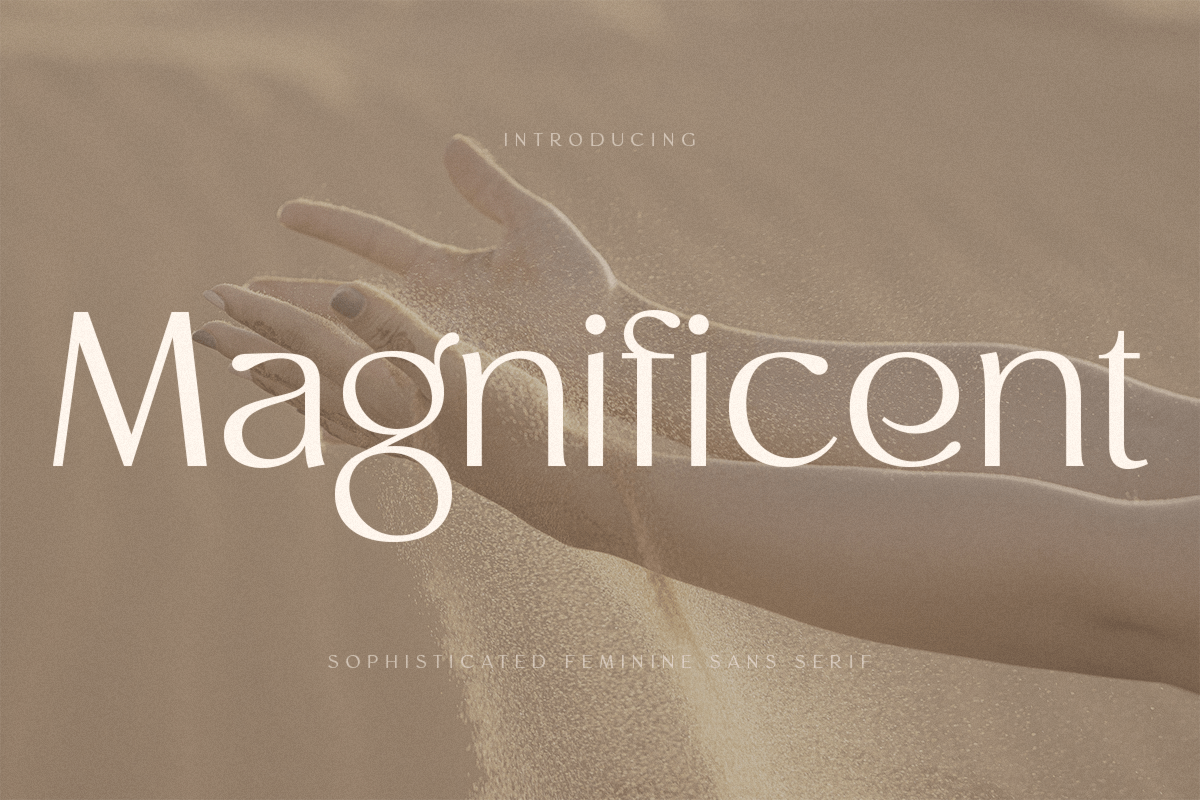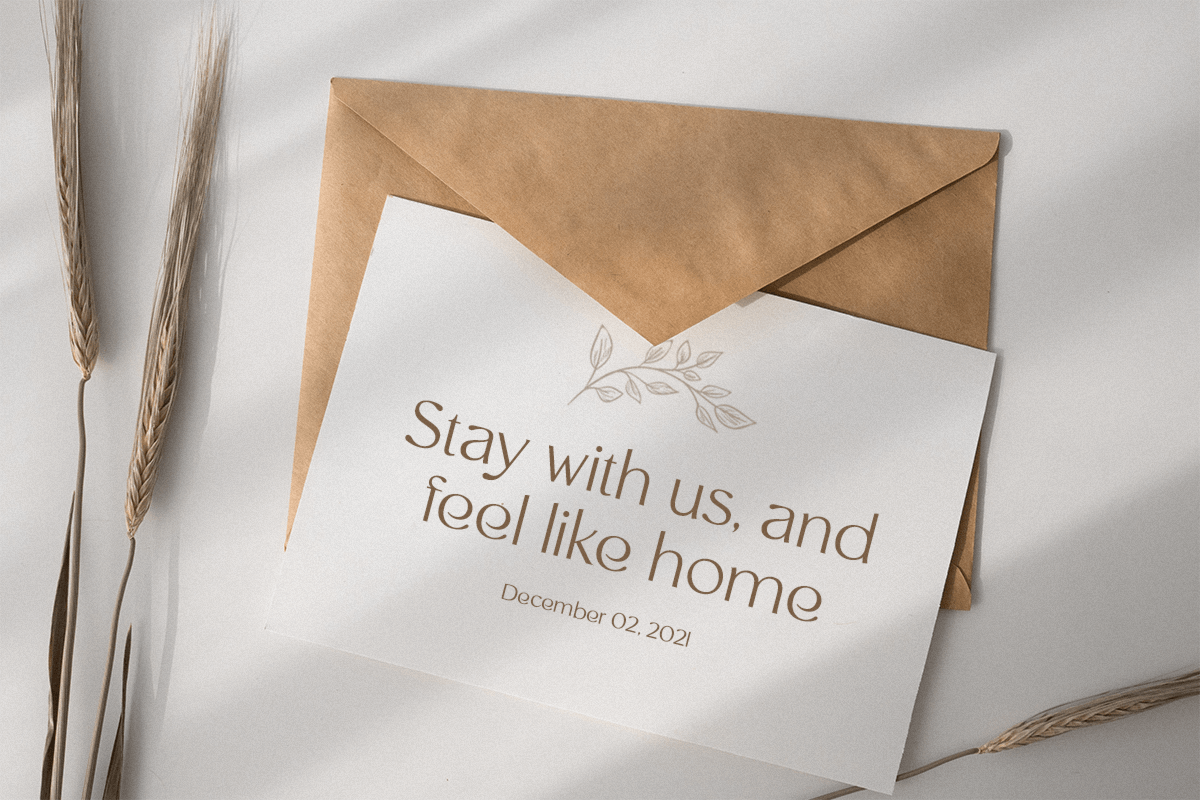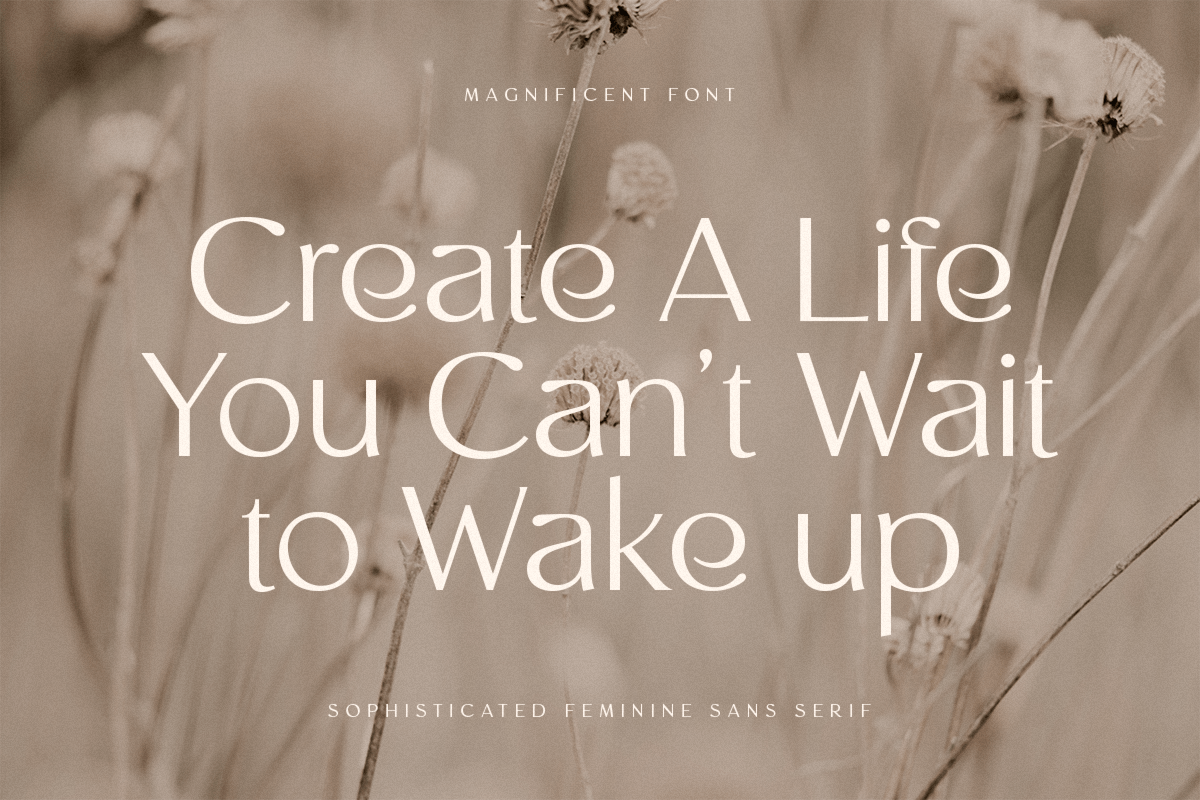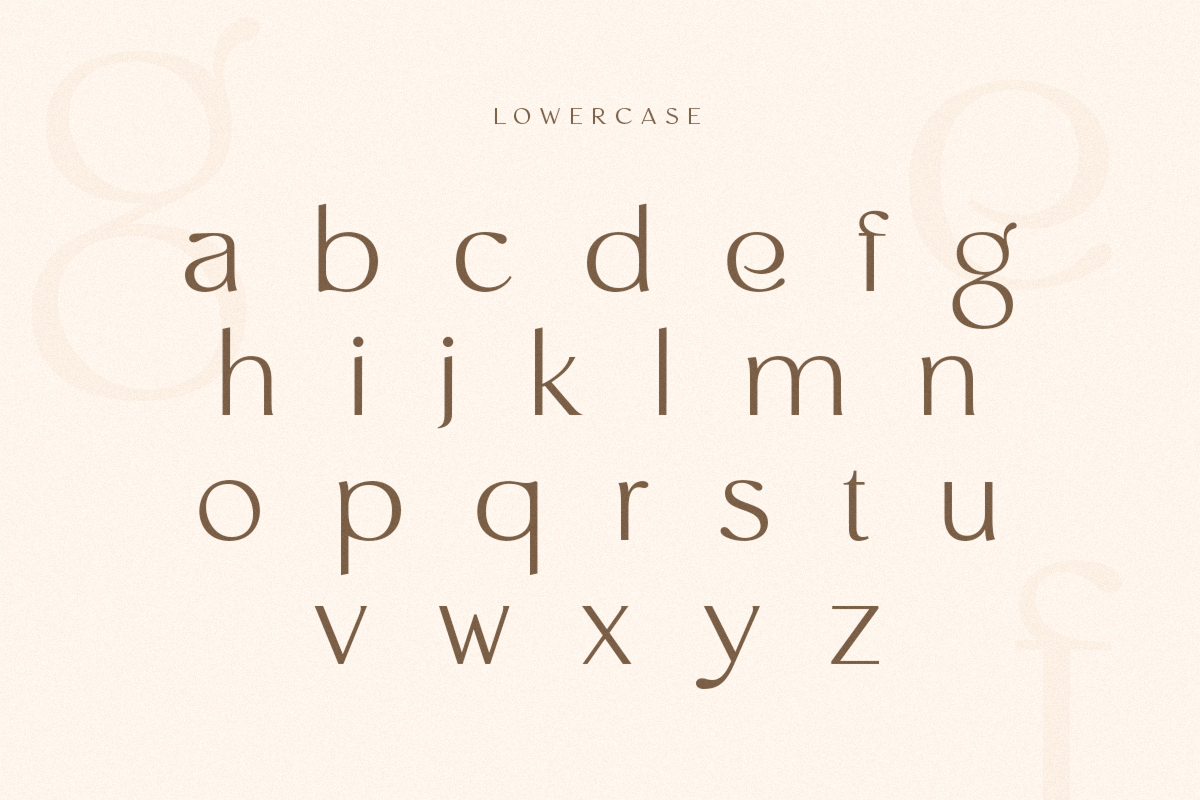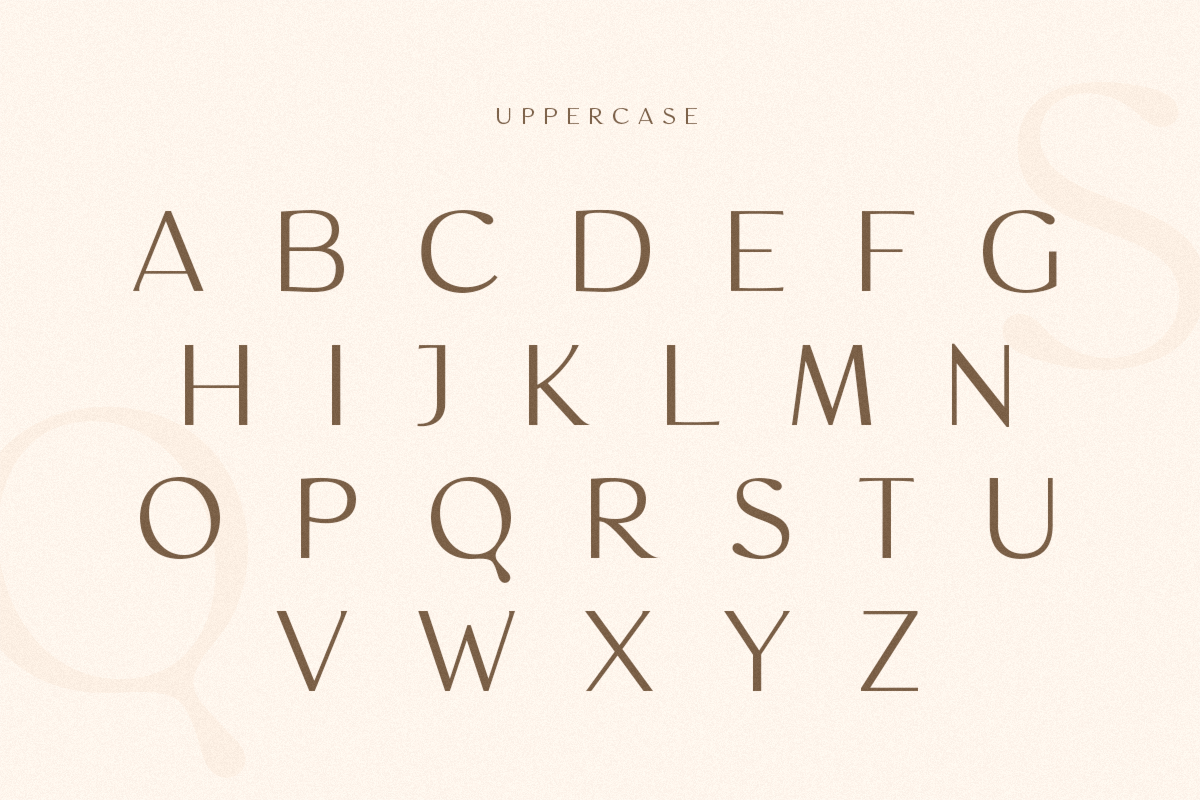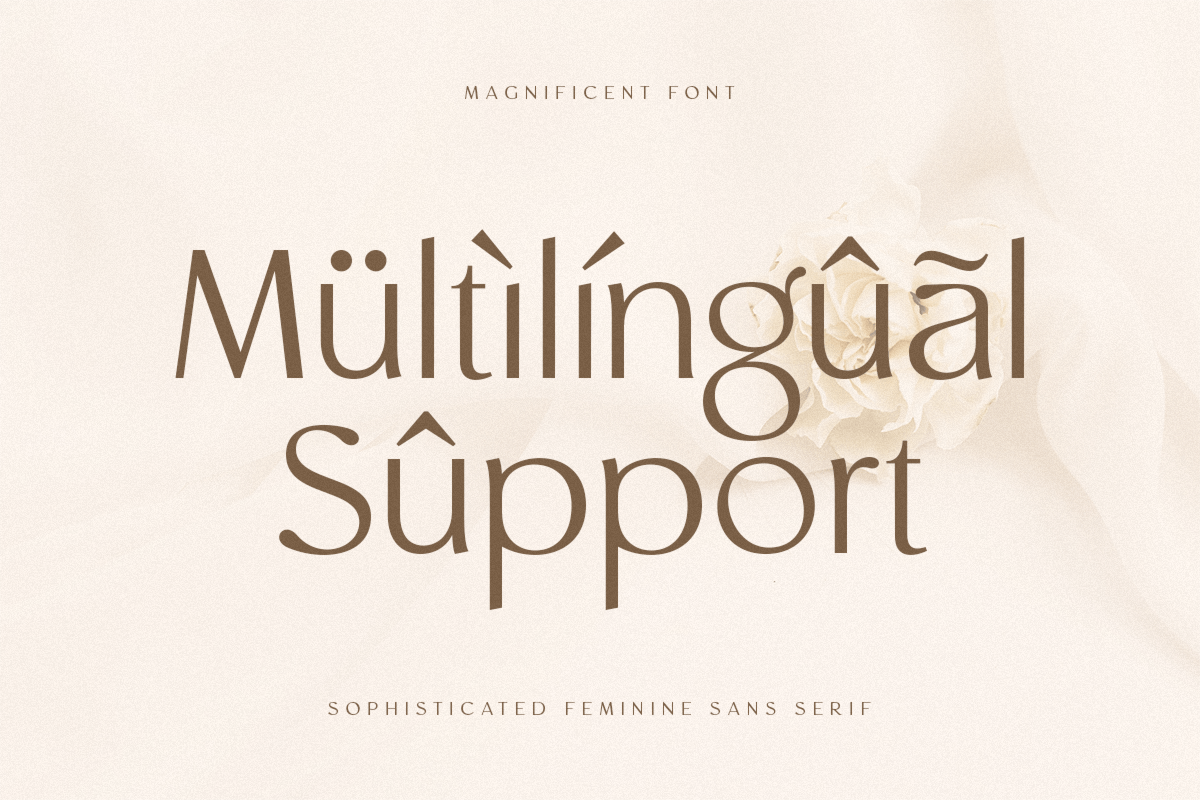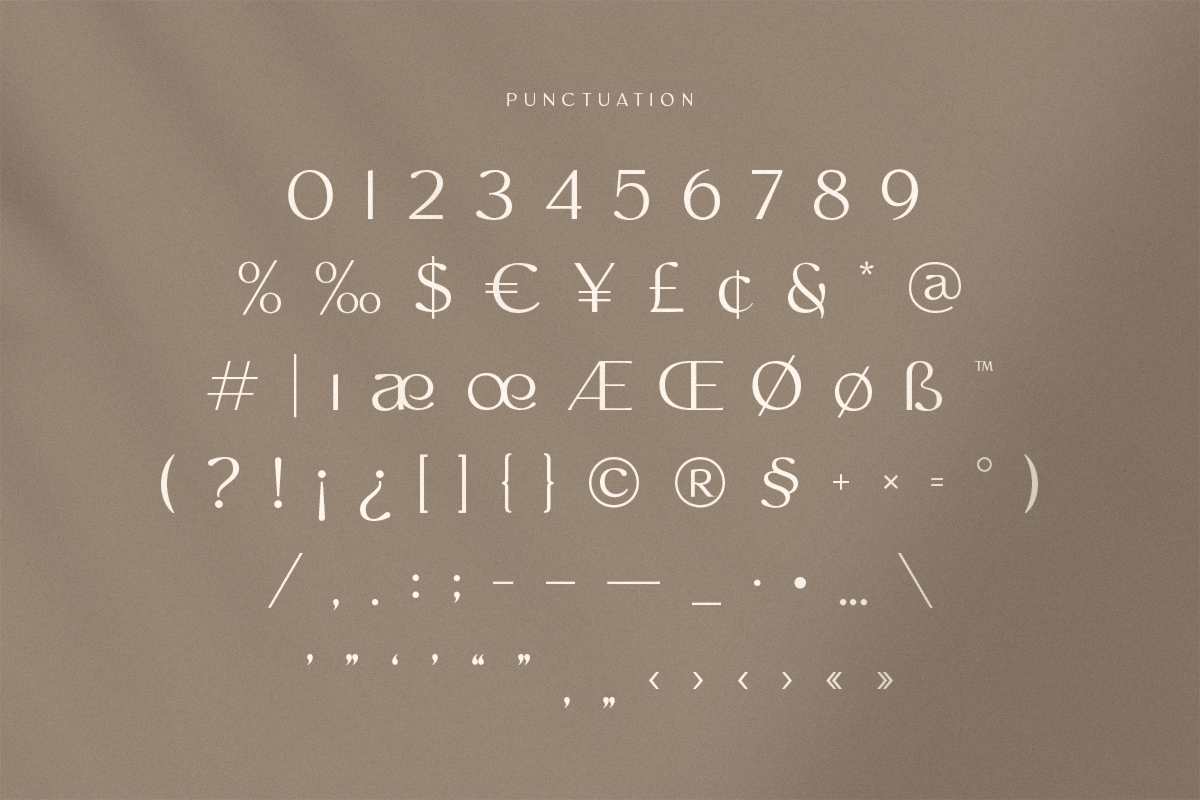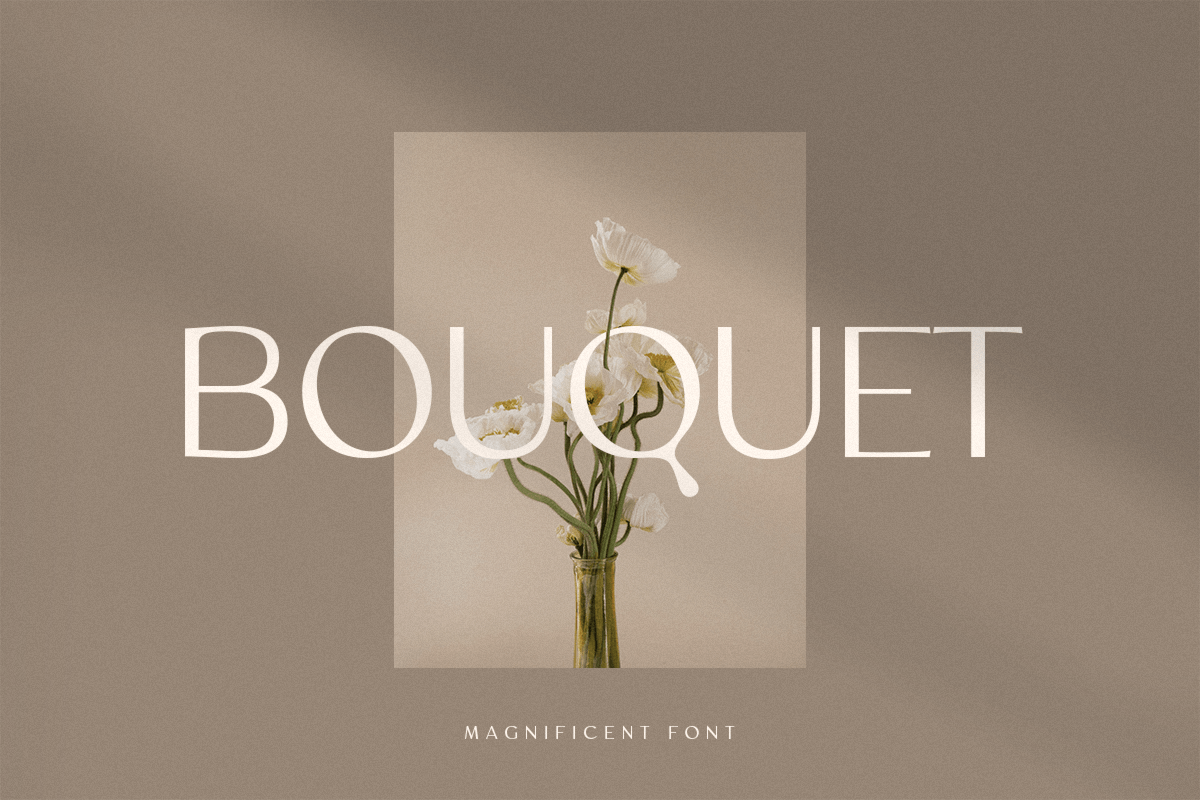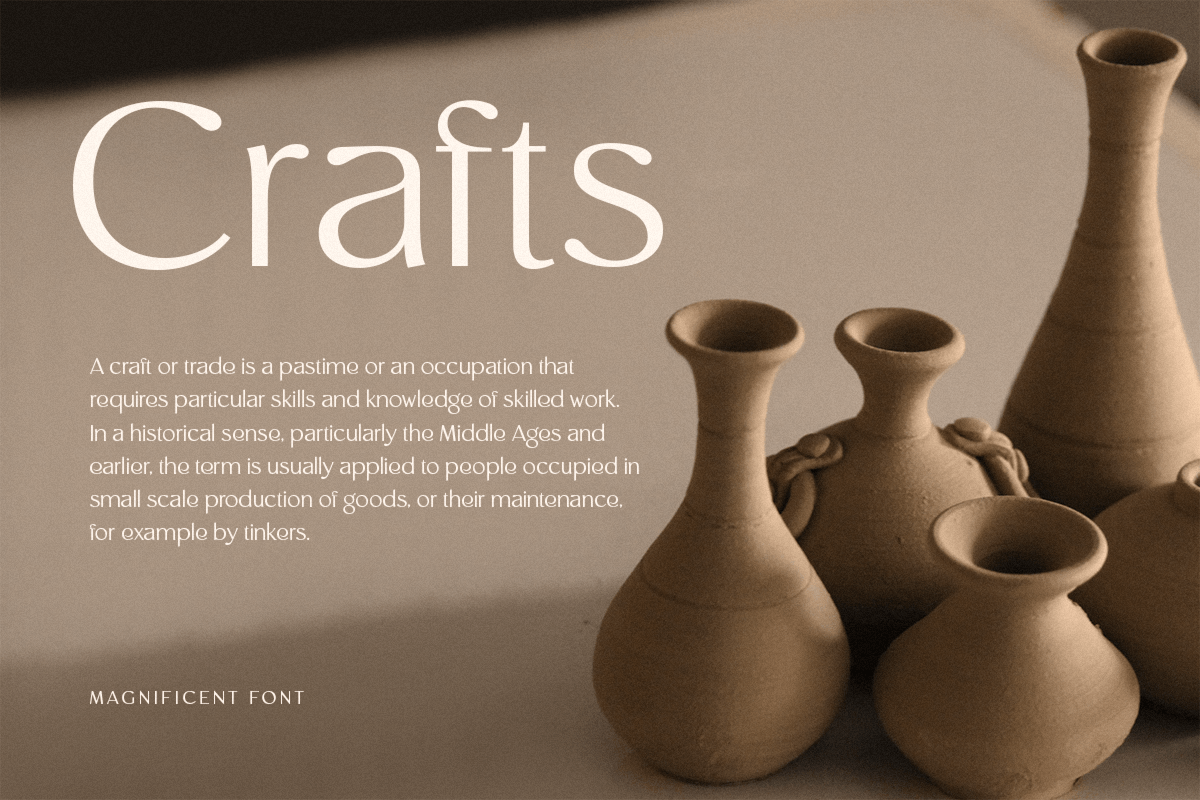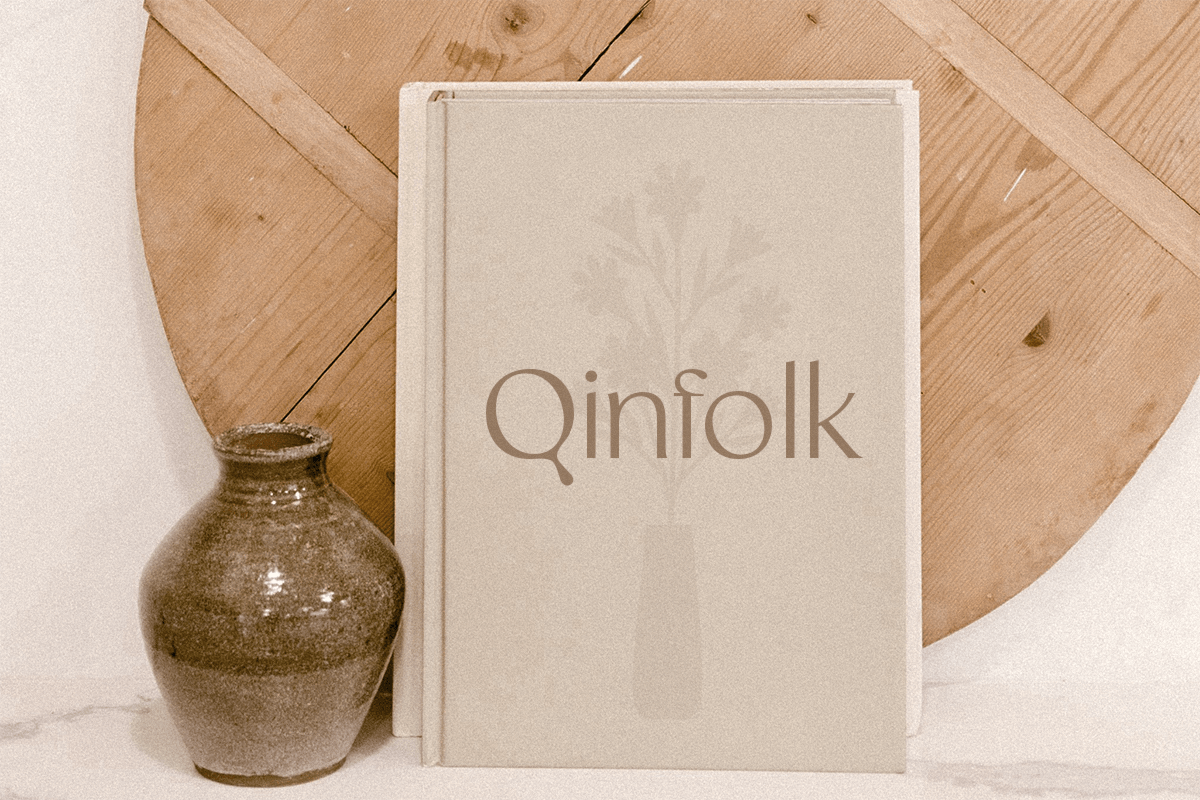
Magnificent
-Modern Feminine Vintage Font
Magnificent is A Modern Feminine Vintage Font
Magnificent font is a feminine retro modern vintage font with a fancy, playful, unique, and versatile vintage sans serif that you can combine to get a beautiful typography. It is a Sans Serif font with moderate contrast that perfect for branding projects, logo, wedding designs, social media posts, advertisements, product packaging, product designs, label, photography, watermark, invitation, stationery, and any projects, it makes with a high level of legibility.